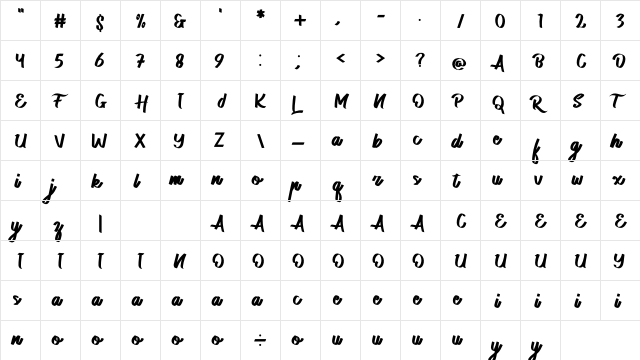
The Lovely Script Script Regular
| Designer | Randi Ilhamsyah // Vasgaz Creative |
Design Context for The Lovely Script Script Typeface
The Lovely Script Script flows with the natural rhythm of handwritten lettering, making it ideal for designs that call for warmth and personal expression.
Font Pairing: Combine The Lovely Script Script with a simple geometric sans for maximum contrast — the tension between flowing curves and clean structure is a classic typographic pairing.
Pro Tip: Use The Lovely Script Script for short runs of text — names, titles, or taglines. Extended body copy in script faces tires the eye quickly.